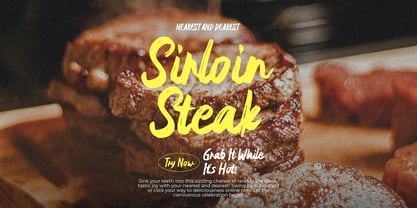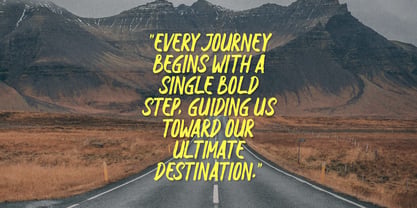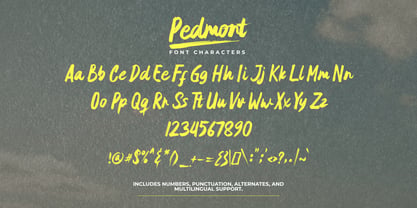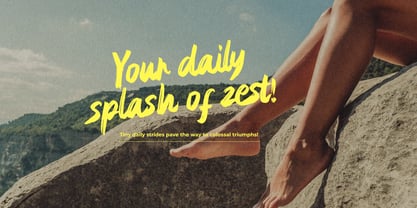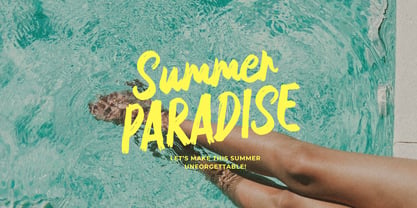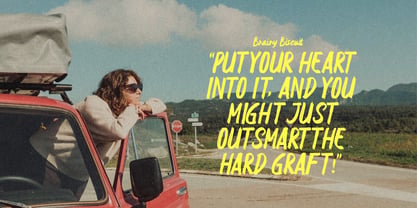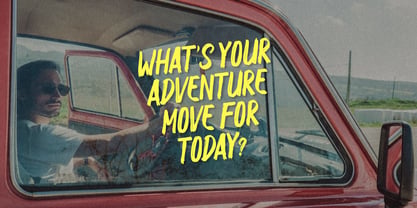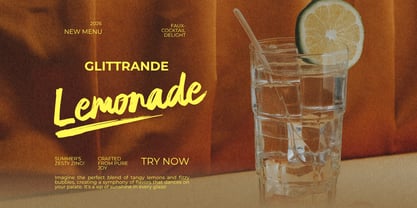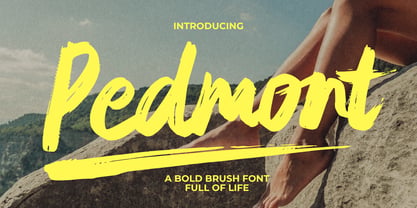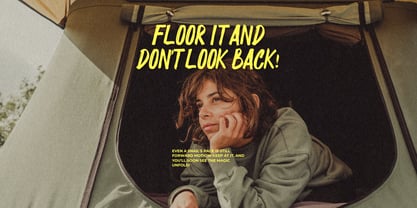
Pedmont
by Gatype
The Pedmont Font Family was designed by khaidir and published by Gatype. Pedmont contains 1 styles. More about this family
✨ A Bold Brush Font Full of Life
This expressive brush font brings an energetic, hand-drawn feel to your design work. Crafted with a mix of bold strokes and intentional imperfections, it captures the raw emotion of real handwriting — bold, playful, and full of character.
Perfect for eye-catching headlines, motivational quotes, branding projects, posters, packaging, and social media graphics, this font is made to stand out.
✍️ What’s Inside:
Uppercase & lowercase letters
Numbers & punctuation
Multilingual characters
Alternates for extra creativity
Let your words speak louder with every brushstroke.
Unpolished, authentic, and creatively free — just how real inspiration flows.
Designers: khaidir
Foundry: Gatype